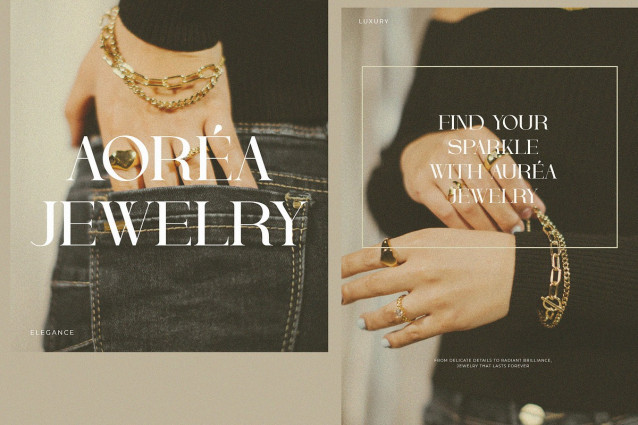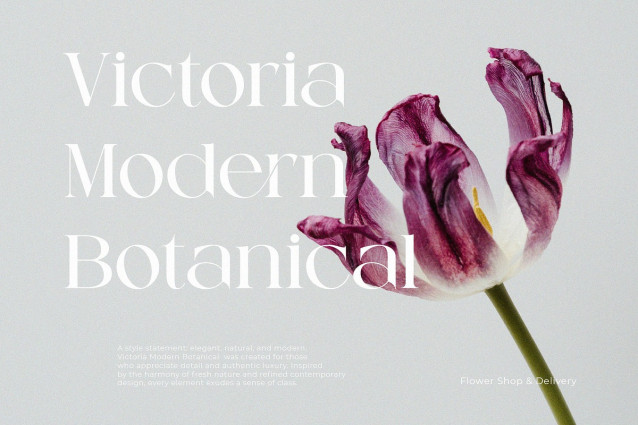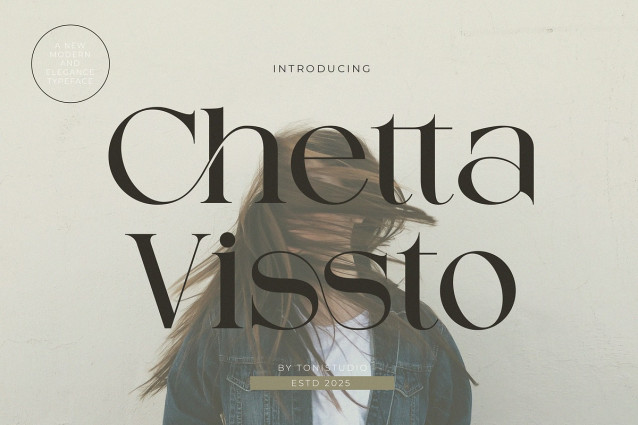
Chetta Vissto Font
Chetta Vissto Font is a modern serif font with a touch of elegance and luxury. Combining a classic and graceful feel with a futuristic, visionary style, this font is perfect for premium branding, fashion logos, magazine editorials, and even wedding invitations. With its smooth curves and beautiful, thin contrast, Chetta Vissto brings timeless and sophisticated typography to any design.